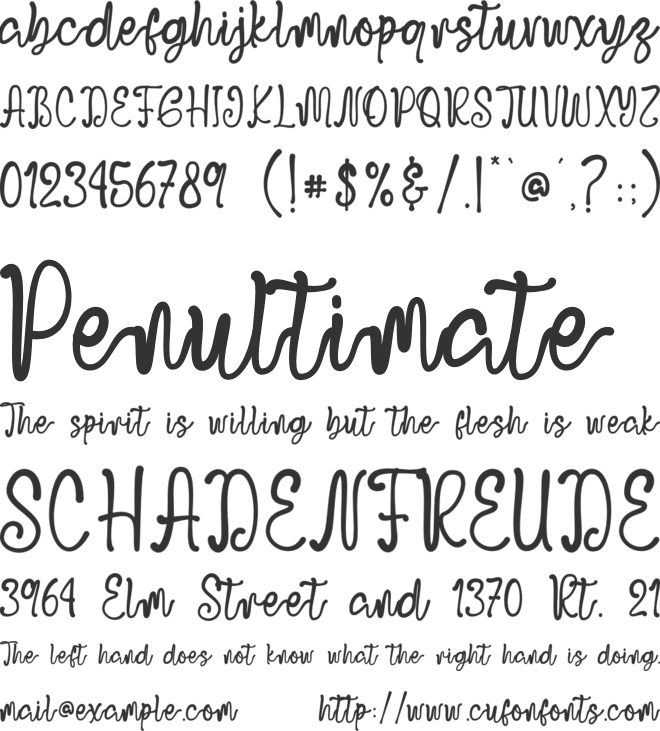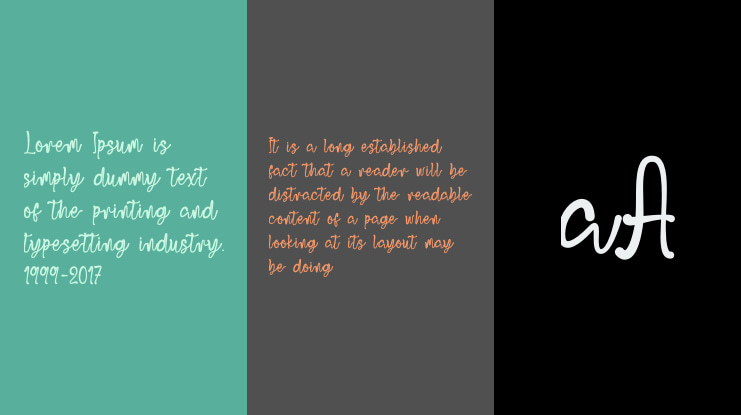
Bouncy Scribble Font
Add a touch of joy and energy to your designs with Bouncy Scribble, a delightful handwritten script font that feels both organic and modern. Designed with a bouncy baseline and consistent, fluid strokes.